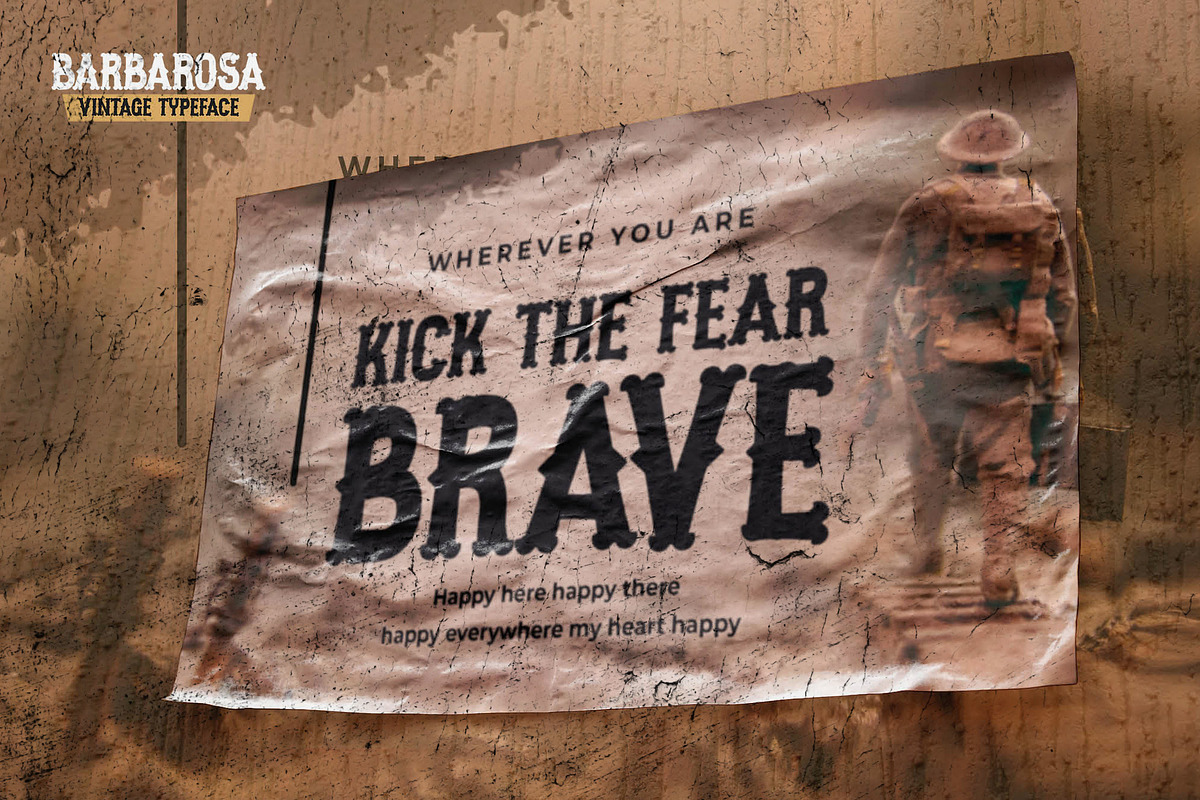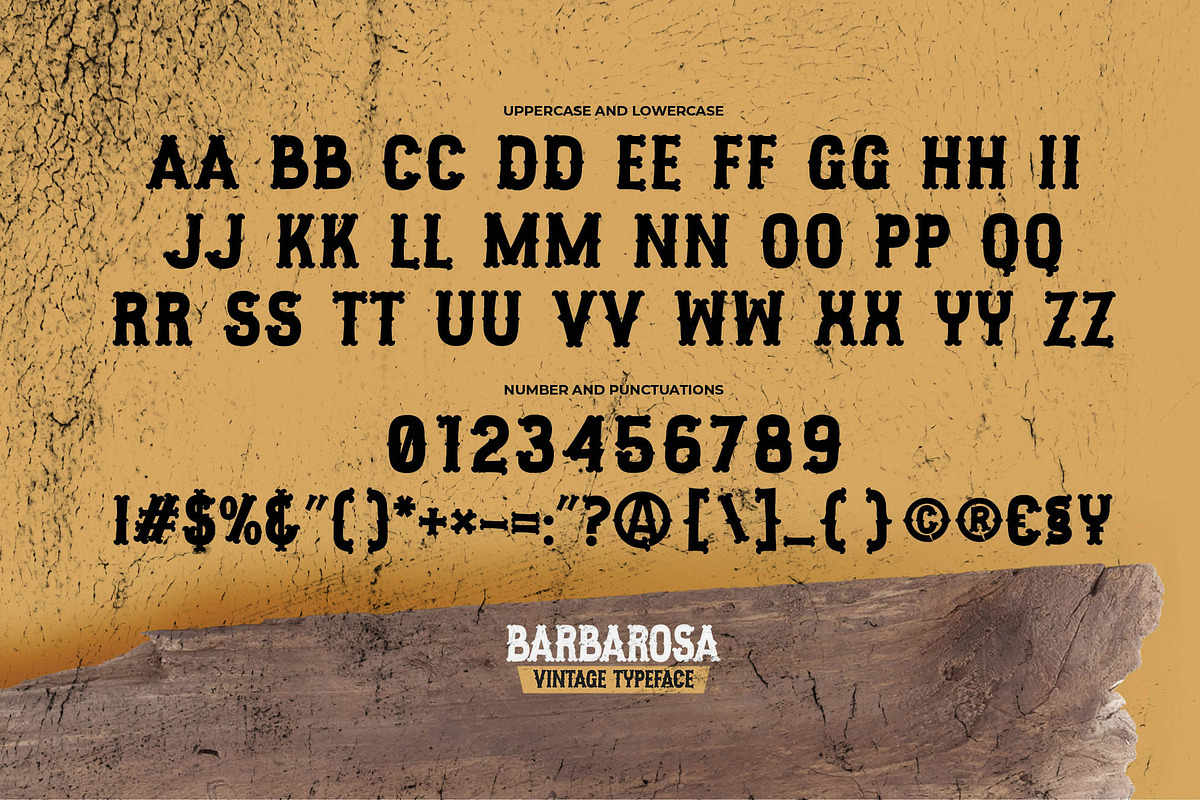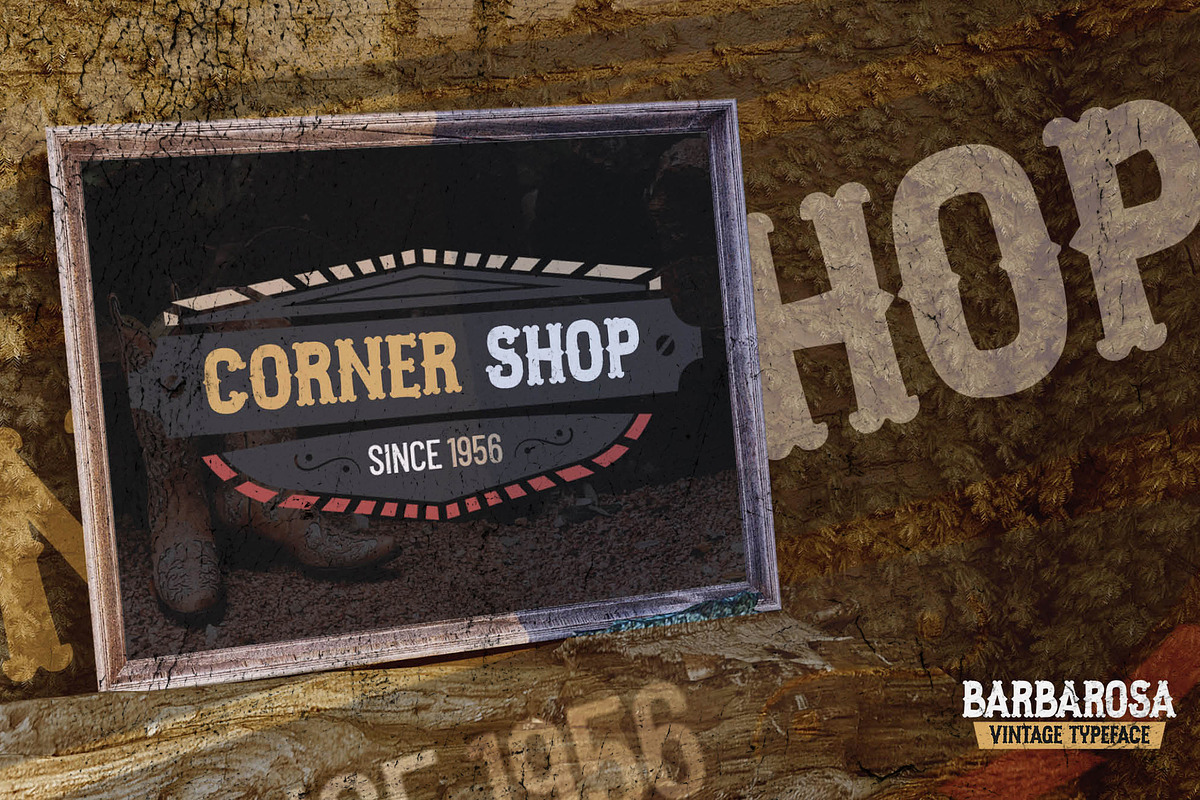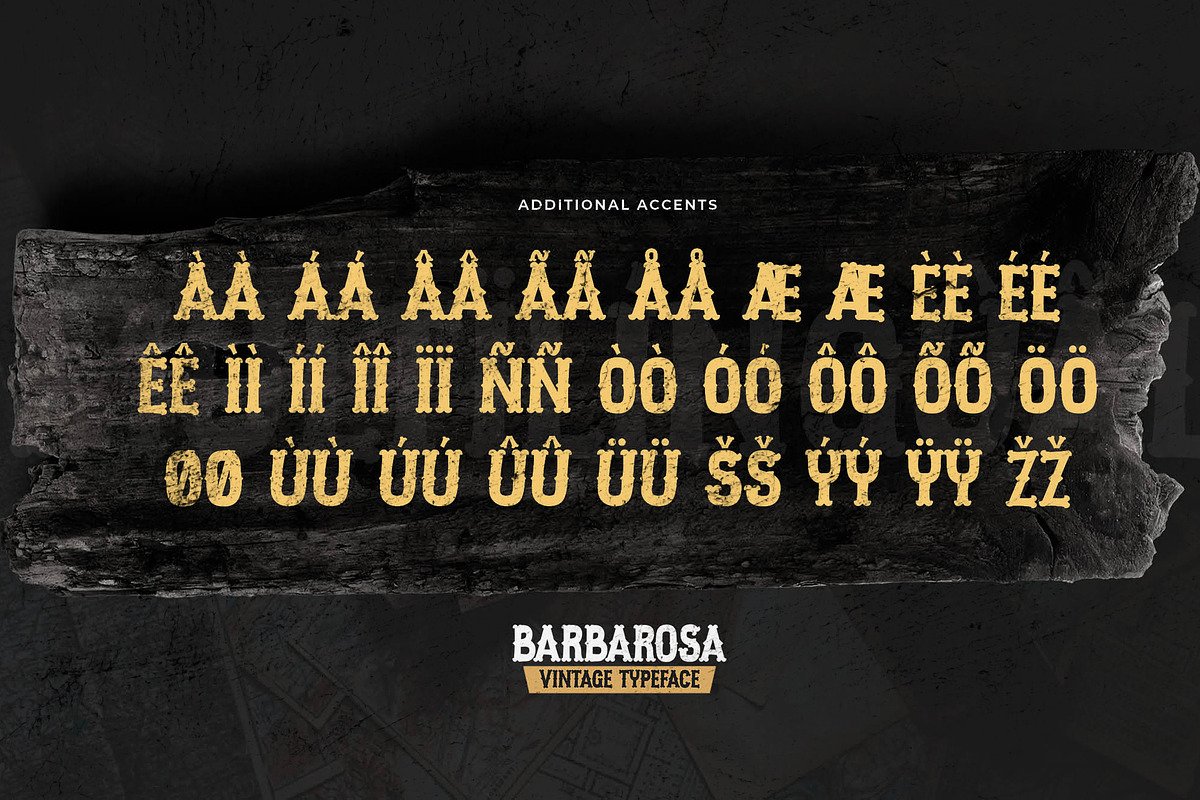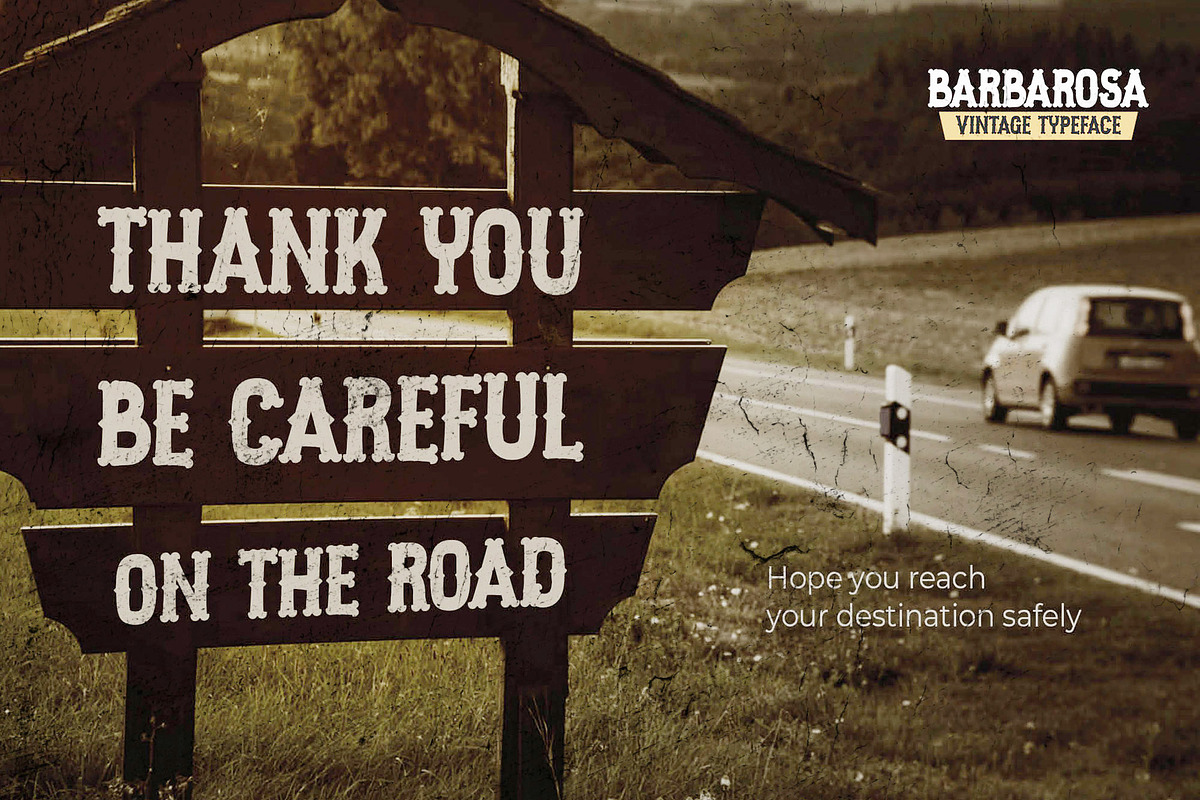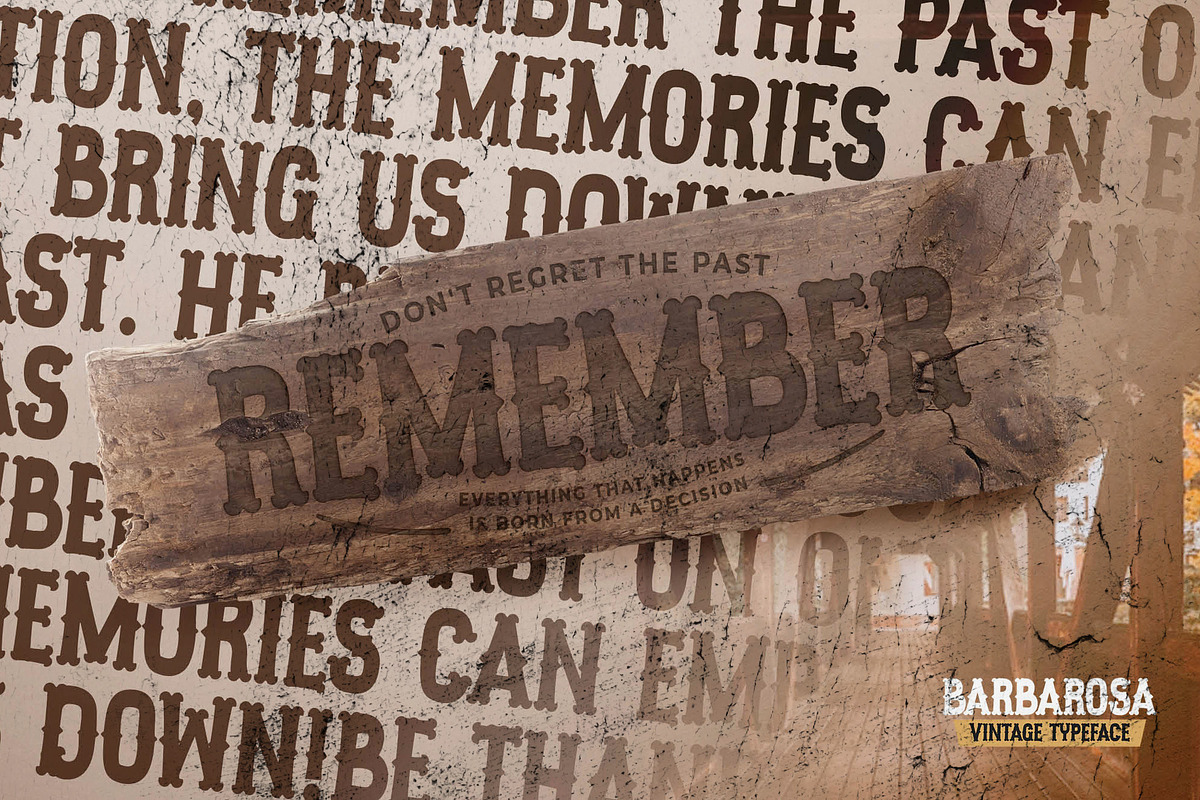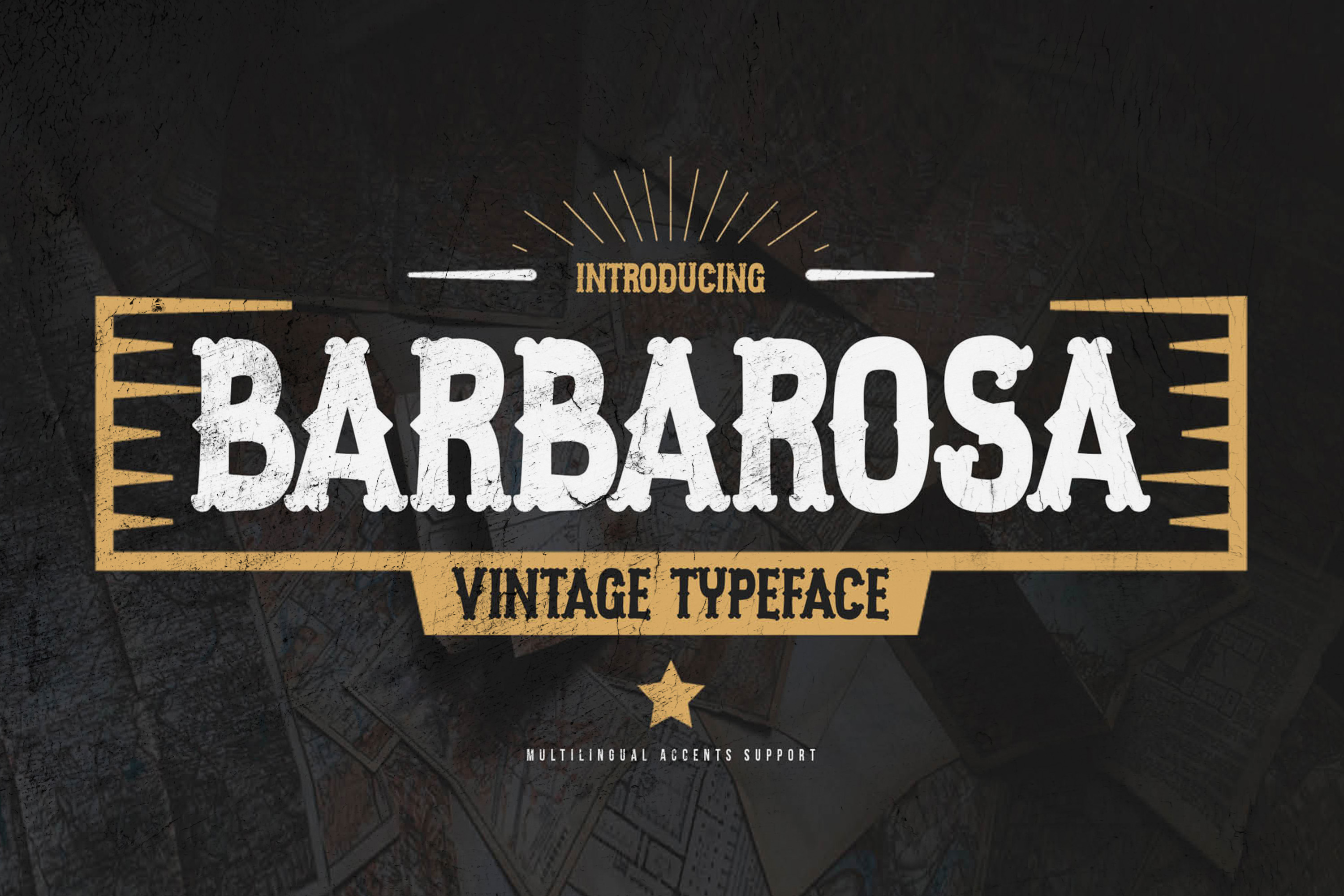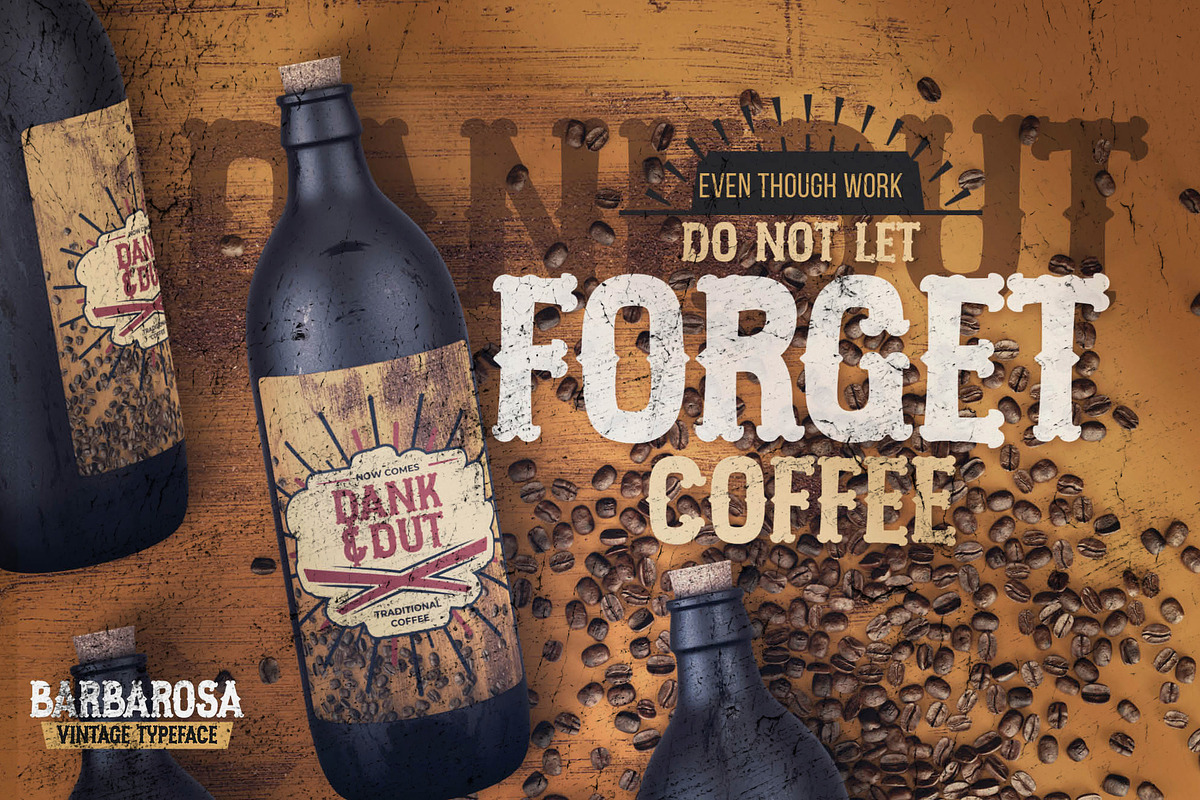
BARBAROSA - Vintage Typeface
Introducing our latest display typeface called BARBAROSA - Vintage Typeface is Display Vintage Serif can make your logotype become more interesting. Best Vintage font multilingual support. inspired by the decorative arts and architecture movement. BARBAROSA fonts is perfect for your project and allows you to create designs, headlines, posters, logos, badges, and many more that are beautiful. It is also best used for posts, logos, posters, certificates, labels and more.
- Multilingual Accent